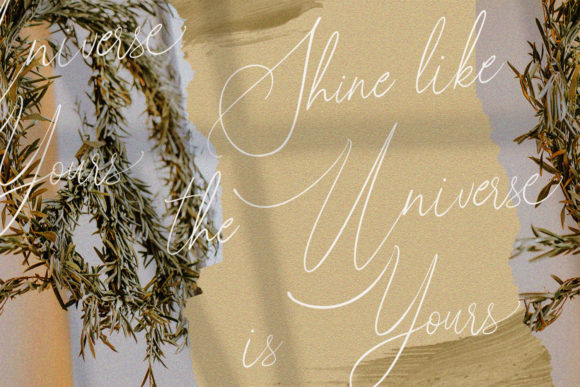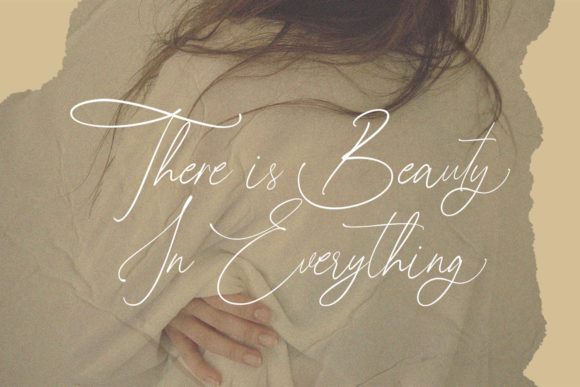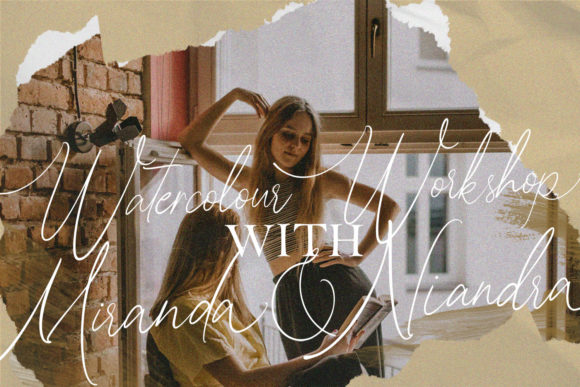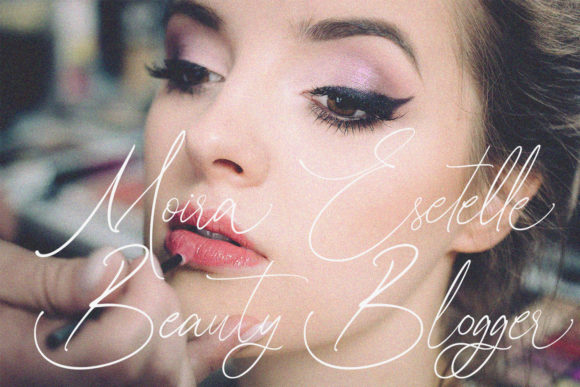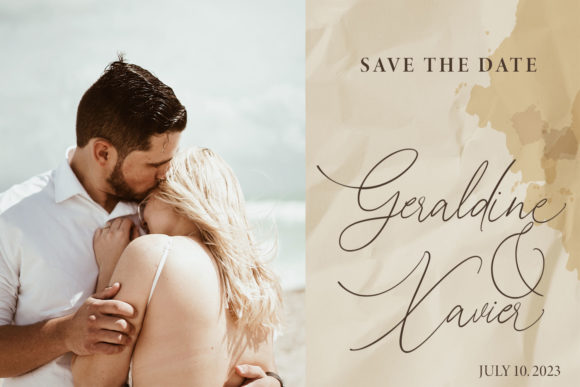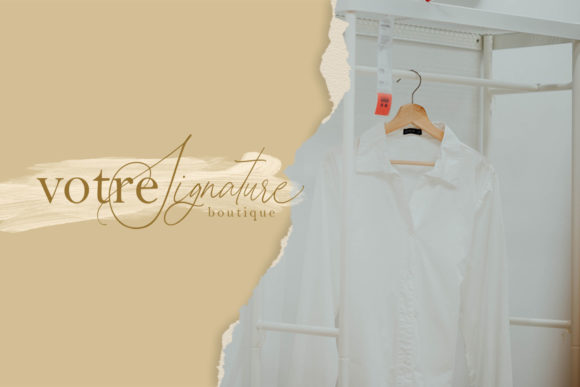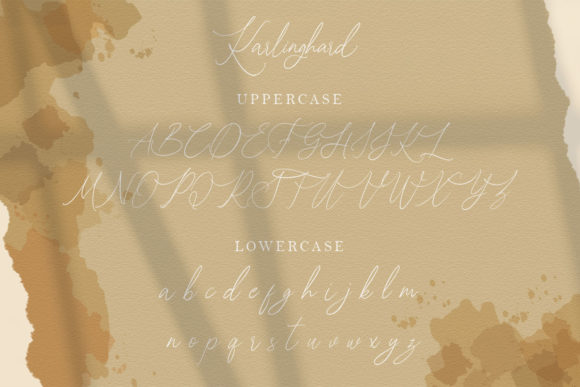
HomeScript FontsKarlinghard Font Script Fonts Karlinghard Font FacebookXPinterestWhatsApp Karlinghard Font Poster 2 Karlinghard Font Poster 3 Karlinghard Font Poster 4 Karlinghard Font Poster 5 Karlinghard Font Poster 6 Karlinghard Font Poster 7 Karlinghard Font Poster 8 About Karlinghard Font Karlinghard is a sweet and charming handwritten font with a unique style. Get inspired by its authentic vibe. DOWNLOAD NOW People also explored Breakfast Burrito Wildaloney Font Reconnect Font Benedetta Font Simple Home Font Monogram Love Shadow Font Arts & Crafts JY Chilly Outside Font Soul Strokes Font 403 0 TagsKarlinghard Font Previous articleBogoritmaa FontNext articleKreature Font LEAVE A REPLY Cancel reply Comment: Please enter your comment! Name:* Please enter your name here Email:* You have entered an incorrect email address! Please enter your email address here Website: Save my name, email, and website in this browser for the next time I comment. Personal Use Free Rosebirth Personal Use Free Read more about this font New Normal Personal Use Free Read more about this font Stentiga Personal Use Free Read more about this font Sunflower Personal Use Free Read more about this font BLOG Best Fonts for T-Shirt Design – Top 2025 Picks In 2025, t-shirt design has become more than just fashion—it's a form of self-expression. Whether you're... Using Fonts in Digital Marketing: Tips to Strengthen Your Brand Identity Where to Buy American Fonts Online in 2024 Best Fonts for YouTube Videos: Make Your Thumbnails Stand Out